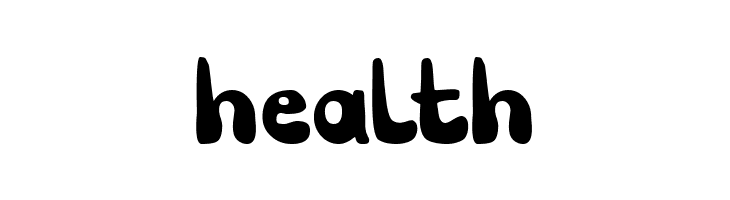
WieynkFraktur Bold Font
Font by Dieter Steffmann
A bold, intricate Blackletter font with ornate and angular letterforms.
DejaVu Sans Mono Bold Oblique Font
A bold, oblique, monospaced font with a modern and dynamic style.
Ashby Light Italic Font
Font by Apostrophic Lab
A sleek, light, and italicized font with a modern and elegant style.
TRACEROUTE Font
Font by Apostrophic Lab
A geometric, angular font with a modern, digital aesthetic.
Giant Head Font
Font by Blue Vinyl - Jess Latham - www.bvfonts.com
A bold, playful font with thick, rounded letters and a bubbly appearance.
Fitzgerald Black Font
Font by dartcanada.tripod.com - Darren Rigby
A bold, geometric font with consistent line weights and a modern aesthetic.
Graph 35+ pix Regular Font
A pixelated, monospaced font with a retro digital aesthetic.
Quadlateral Font
Font by Graham Meade - GemFonts
A geometric, modern font with clean lines and excellent legibility.
CRU-Todsaporn-sketch-book Font
A playful, sketch-like font with a hand-drawn, textured appearance.
CRU-Teerakarn Font
A sleek, modern font with a slight slant and consistent stroke width.
CRU-chonticha-handwritten Font
A playful handwritten font with rounded, informal letterforms.
De Luxe Next Italic Font
A modern, italic sans-serif font with clean lines and a professional appearance.
TypographerFraktur Shadow Font
Font by Dieter Steffmann
A decorative blackletter font with shadow effects, offering a classic and dimensional look.
CRU-Saowalak-Bold-Italic Font
A bold, italicized font with a handwritten, dynamic style.
CRU-Chaipot-Hand-Written Font
A playful handwritten font with consistent strokes and a friendly appearance.
TypographerFraktur Contour Font
Font by Dieter Steffmann
A bold, decorative blackletter font with intricate contours and a gothic style.
OhThat Shark Font